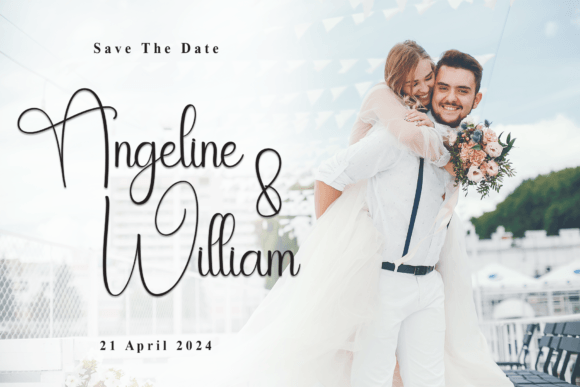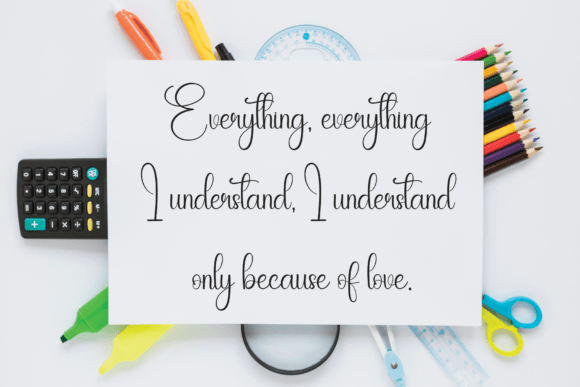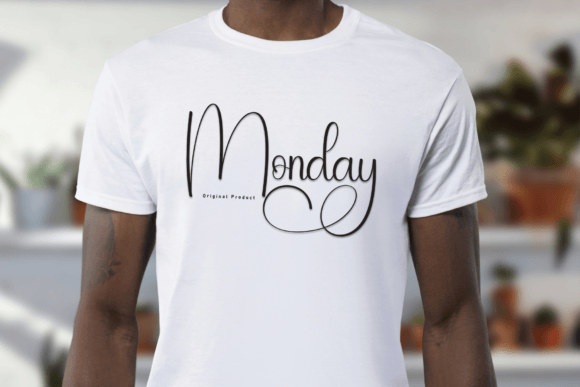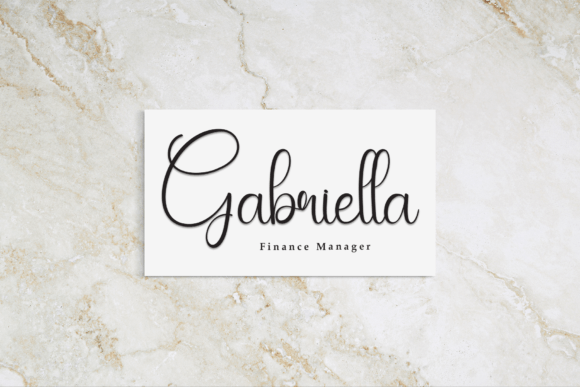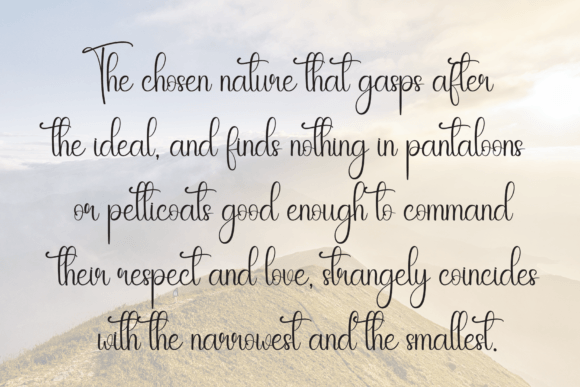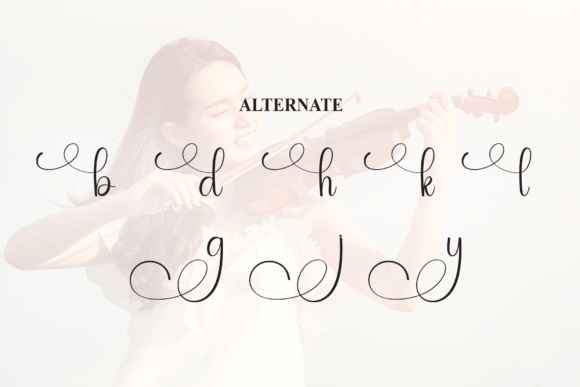
Introduction to Simphony Font
Remember the feeling of holding a beautiful, handwritten wedding invitation in your hands? The way the words seemed to dance across the page, as if written by a loved one? That’s the magic of the Simphony Font. A stylish and elegant script font that adds a touch of sophistication to any design project.
Whether you’re a seasoned designer or a creative enthusiast, the Simphony Font is a valuable addition to your design resource arsenal. Its versatility and high-quality design make it perfect for a wide range of projects, from wedding invitations to business cards and logos.
- Features a transparent background, making it easy to integrate into any design without distracting from the content.
- Includes a comprehensive character set, including uppercase and lowercase letters, numbers, and special characters.
Honest Review: Simphony Font
I recently had the chance to use the Simphony Font for one of my creative projects, and I must say it was a great experience. The font is a high-quality design resource that can add a touch of elegance to any project.
- High-quality design: The Simphony Font is a well-crafted font that is perfect for any creative project.
- Limited font styles: The Simphony Font only comes in a few font styles, which may limit its use in certain projects.
- No bold or italic options: The font does not have bold or italic options, which may be a limitation for designers who need to emphasize certain text.
Overall, I was impressed with the Simphony Font and would recommend it to designers looking for a high-quality design resource. While it has some limitations, it is a great option for designers on a budget or for use in creative projects where a simple, elegant font is needed.
Tips for Getting the Most Out of Simphony Font
Experiment with different font sizes and styles to find the perfect balance for your design. Use the transparent background to create visually appealing effects, and don’t be afraid to combine Simphony Font with other design elements to create a unique look.
Simphony Font is perfect for creative projects such as brochures, flyers, business cards, and presentations. Its high quality and transparent background make it an ideal choice for designers looking to add a professional touch to their work.
Alternatives to Simphony Font